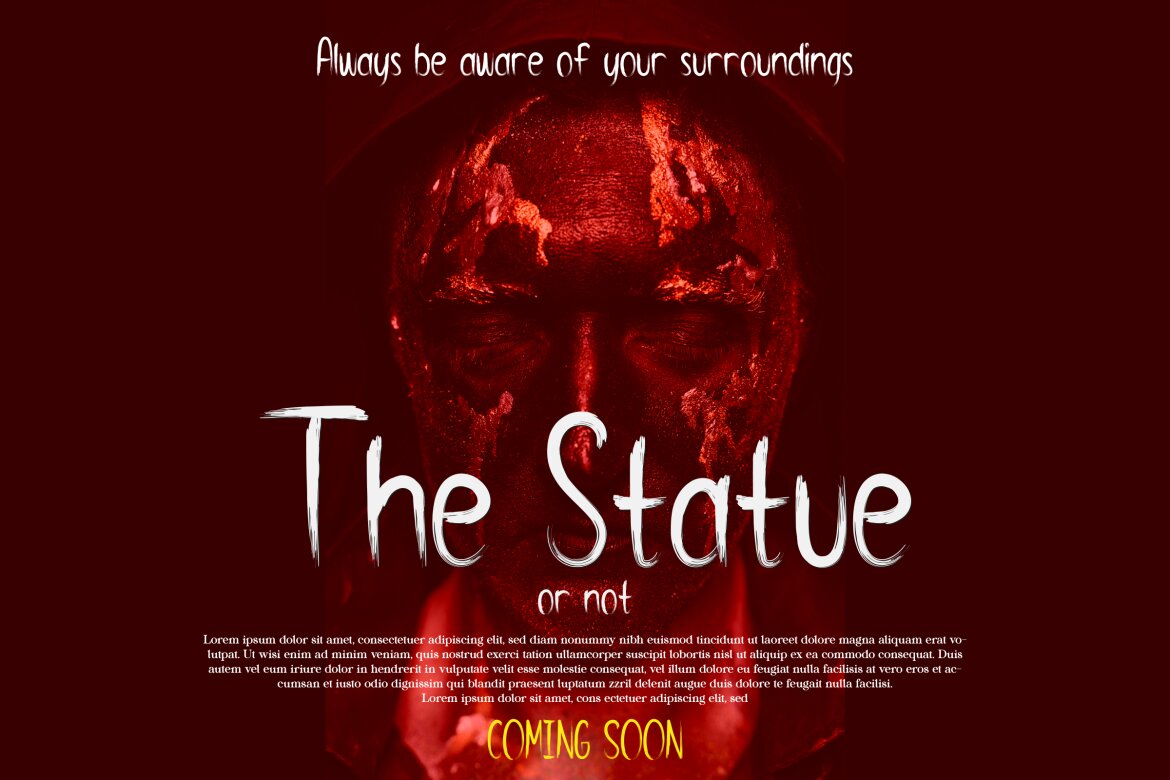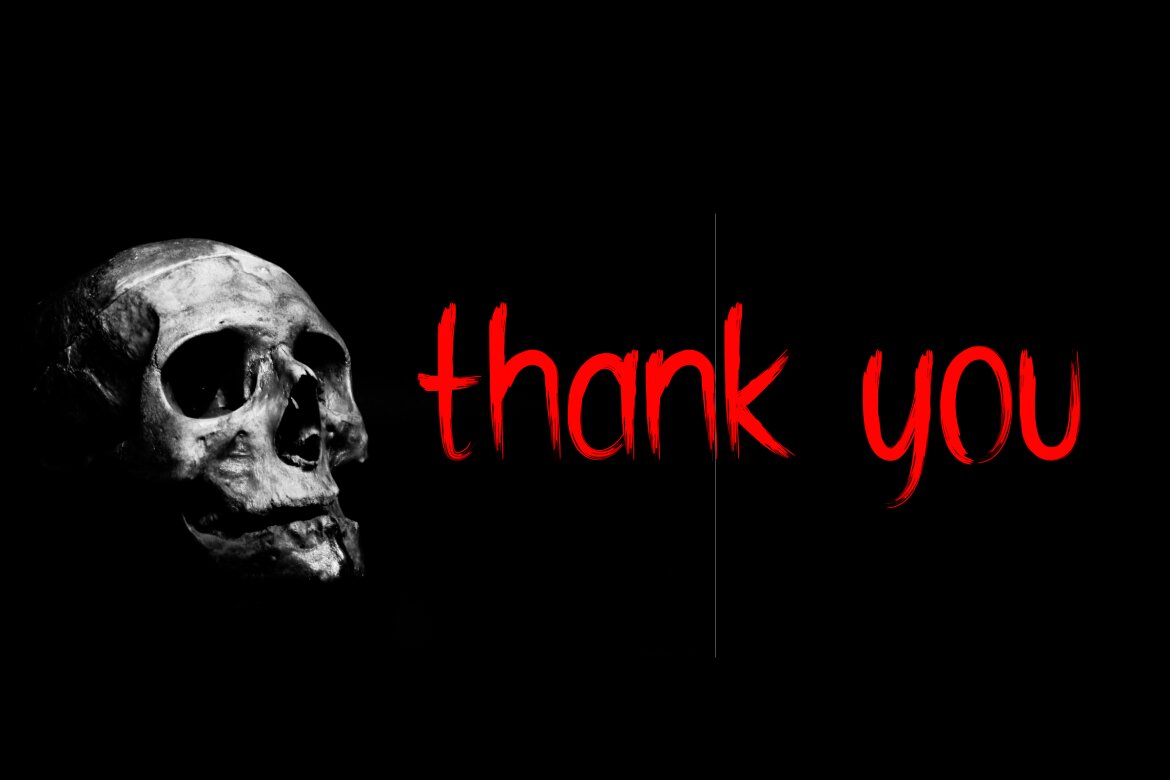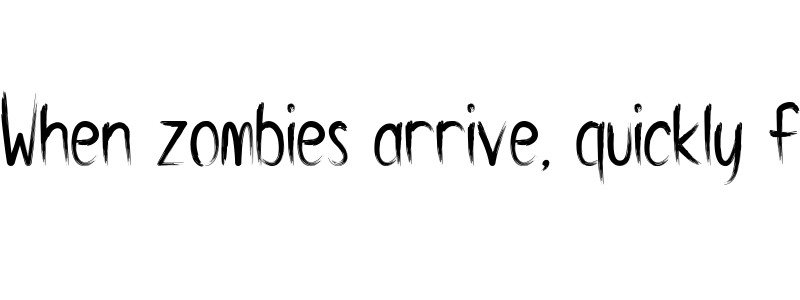
Darkness Souls | Free Horror Font
Darkness Souls
"Darkness Souls" is a chilling brush font, its twisted letterforms and textured strokes exuding an eerie elegance, perfect for evoking fear and mystery in your designs.
• stylish
• uppercase and lowercase